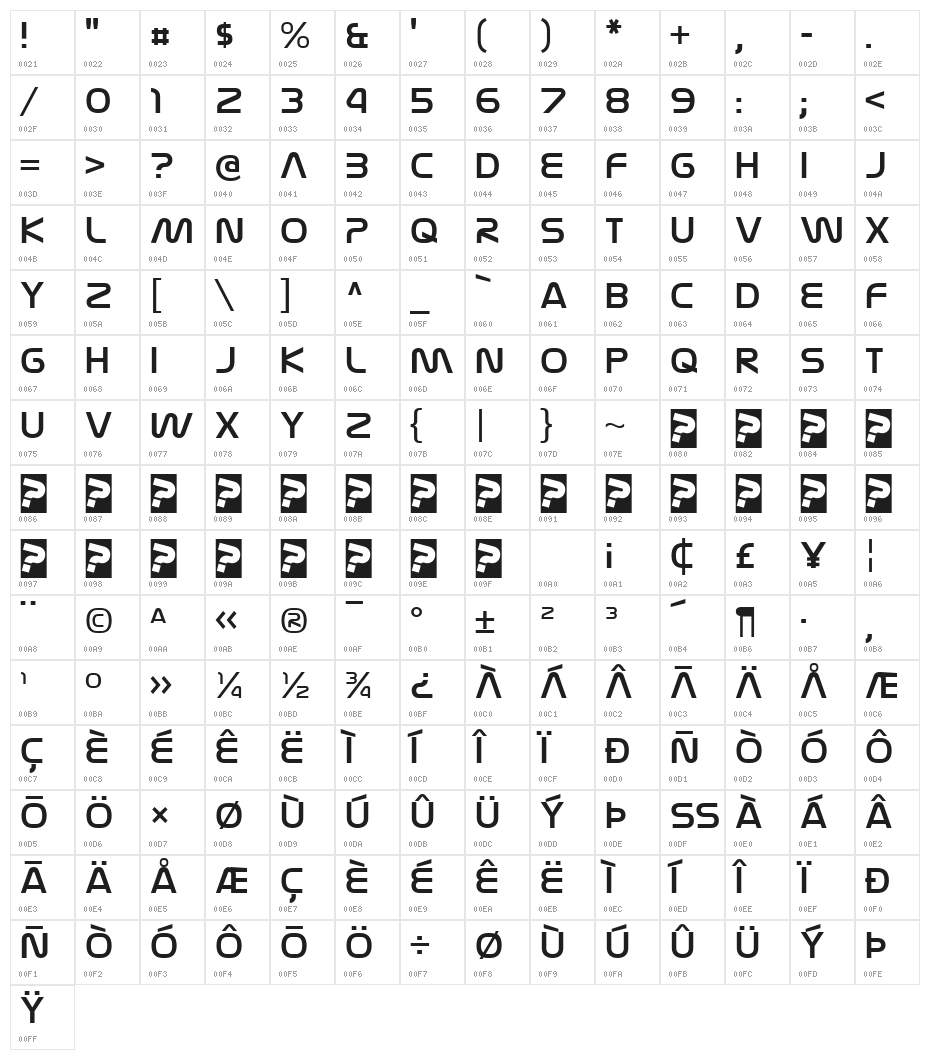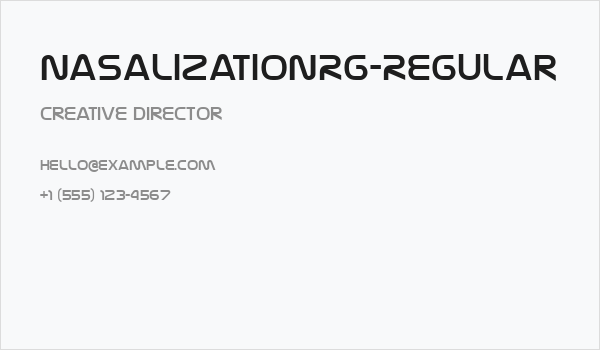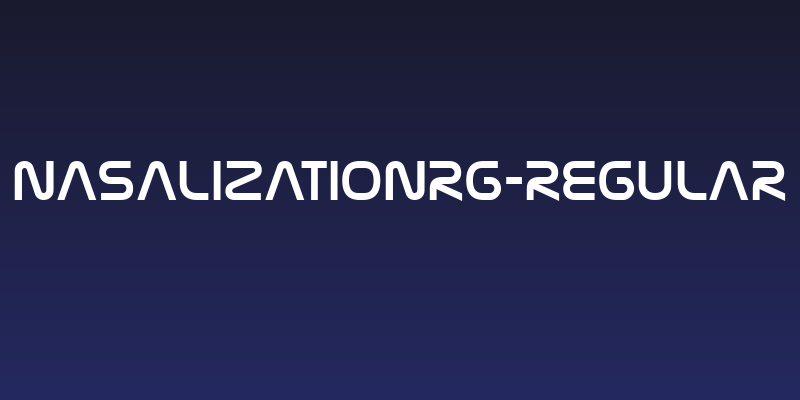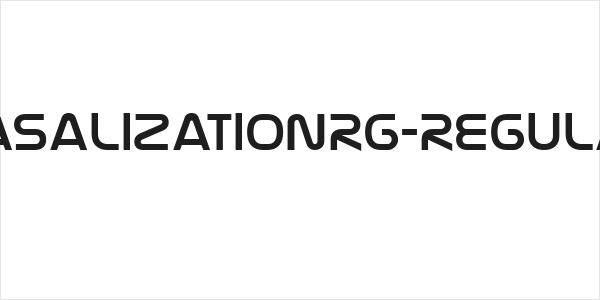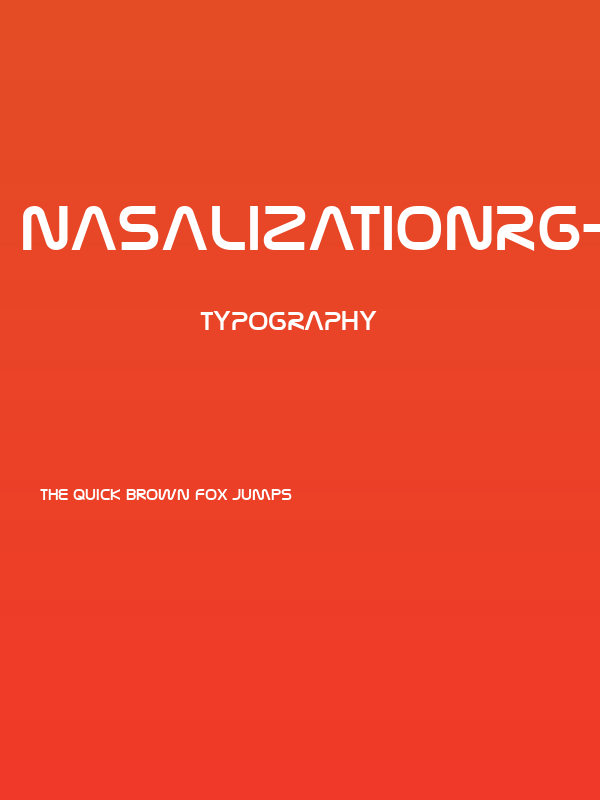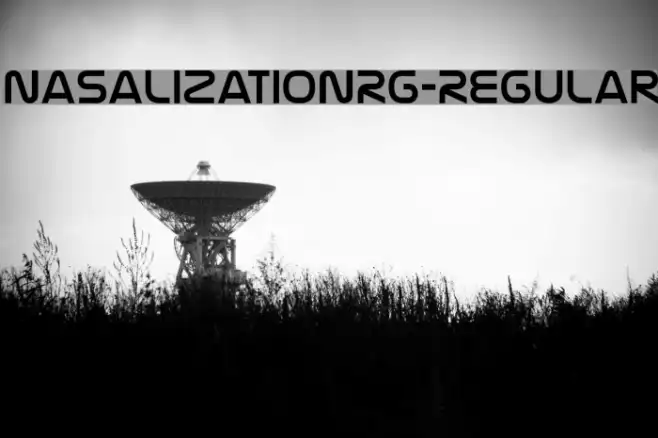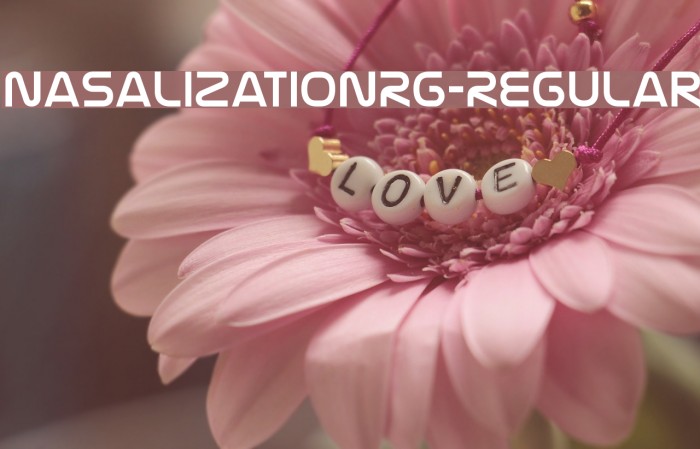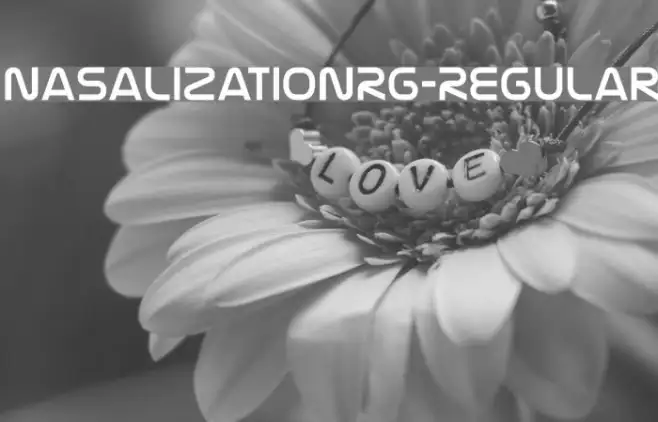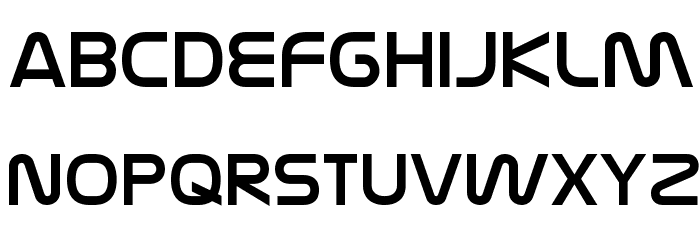
NasalizationRg-Regular Font
NasalizationRg-Regular Description
This font features a modern, geometric design with smooth curves and a sleek appearance. The uppercase letters have a futuristic feel, with unique shapes that give a sense of movement and flow. The lowercase letters maintain the same aesthetic, offering a cohesive look throughout. Numbers are bold and clear, making them easily readable. Special characters are designed with the same attention to detail, ensuring consistency across all glyphs. The overall style is contemporary and dynamic, suitable for projects that require a forward-thinking and innovative look.
| Use Case | Headlines, Logos, Digital Media |
| Proposed Projects | Ideal for technology branding, modern advertising, innovative product packaging, and digital media. |